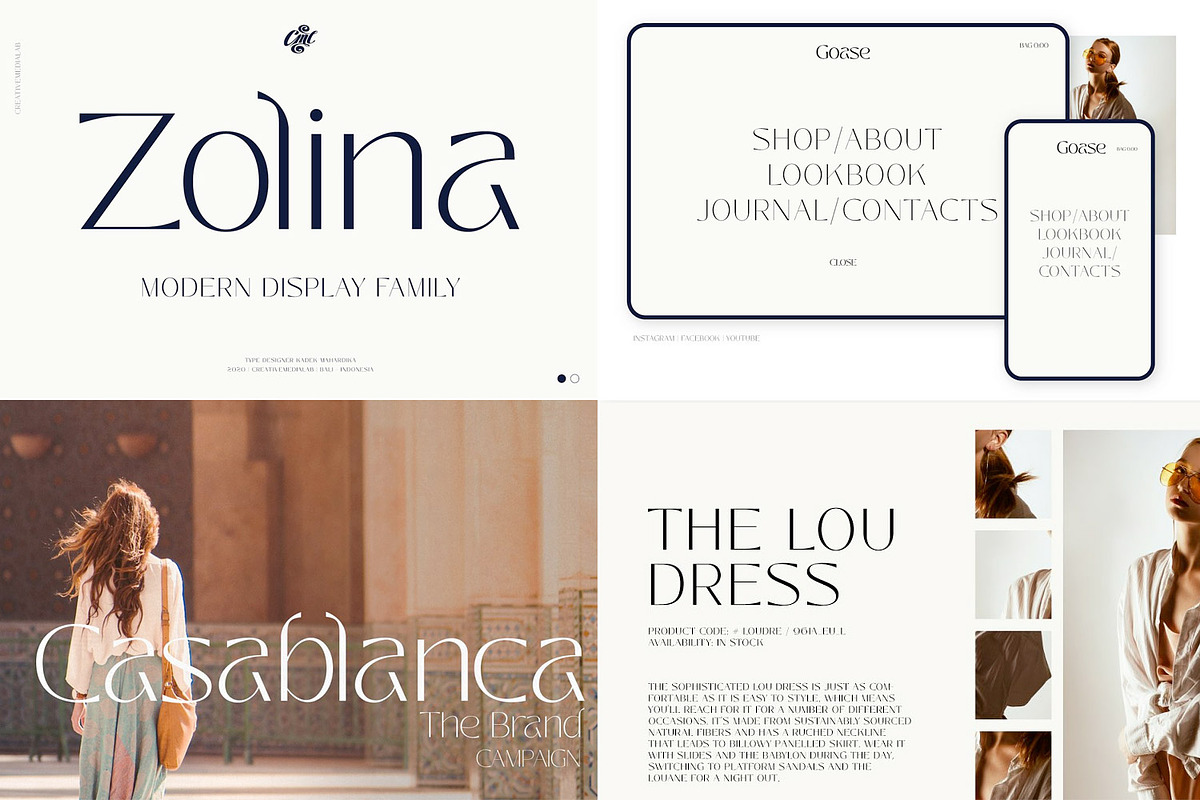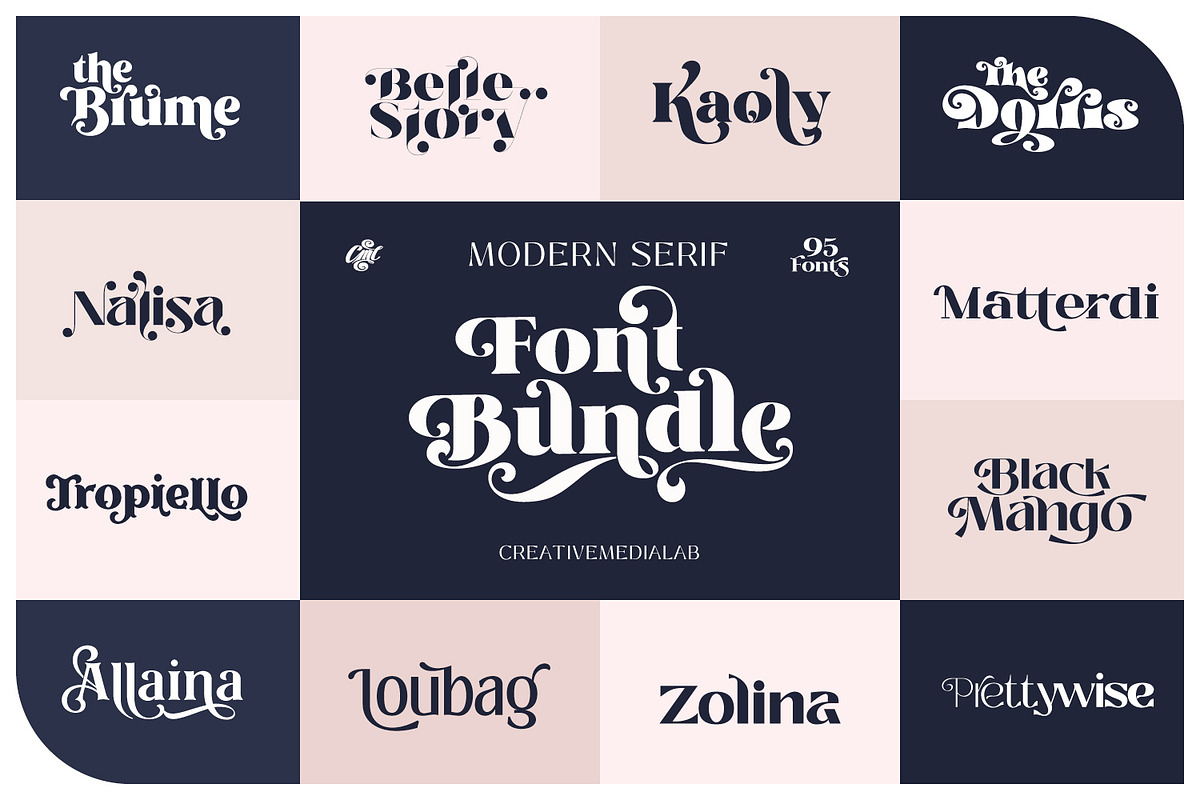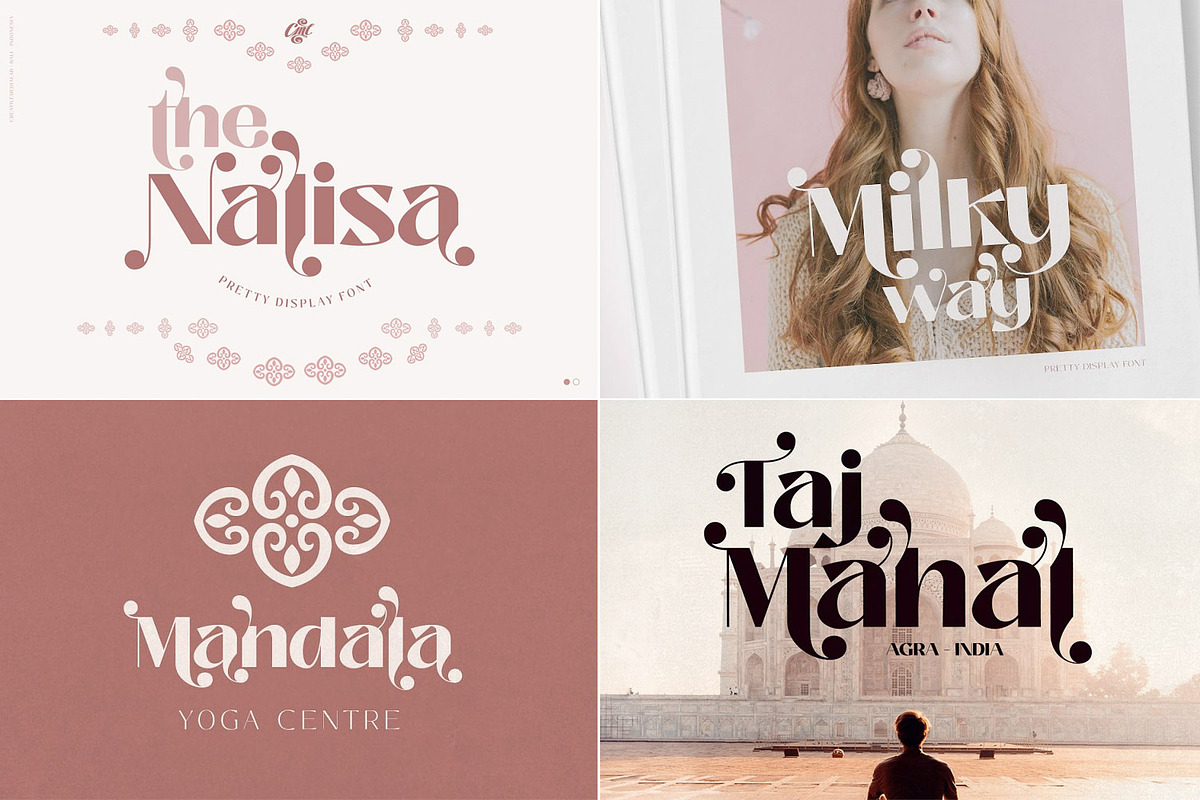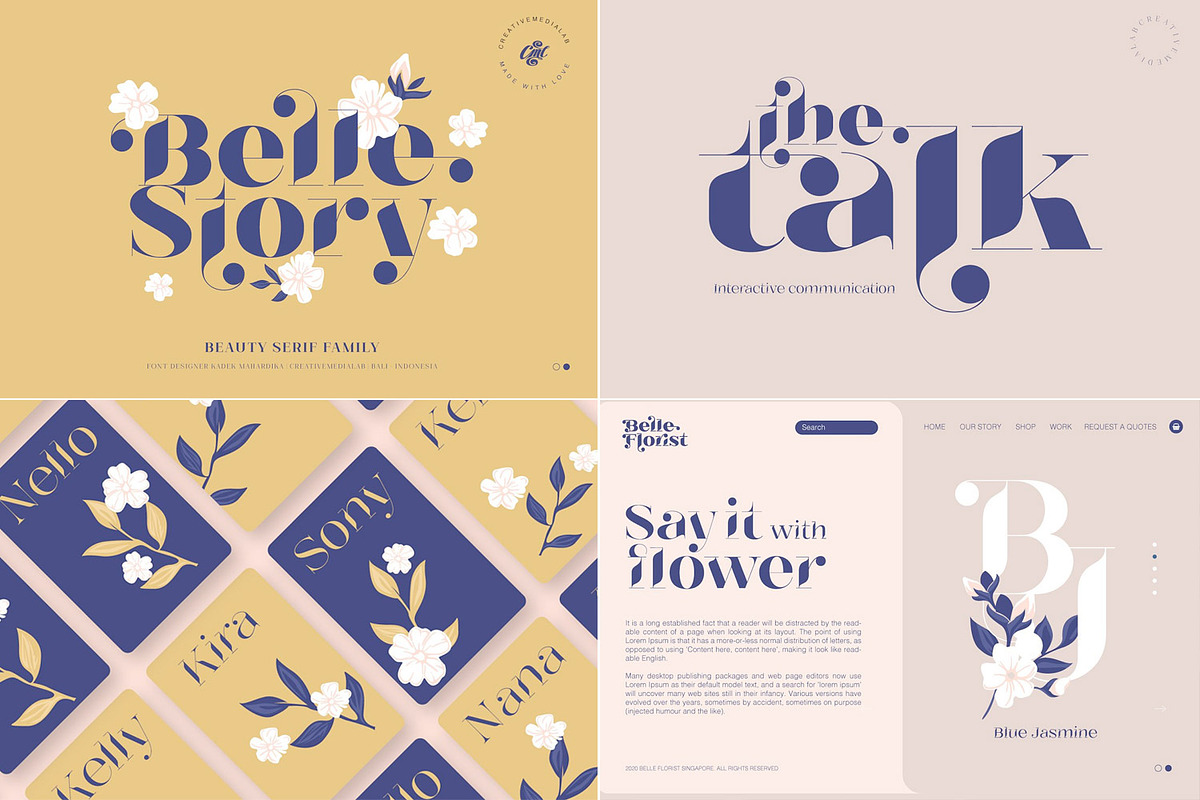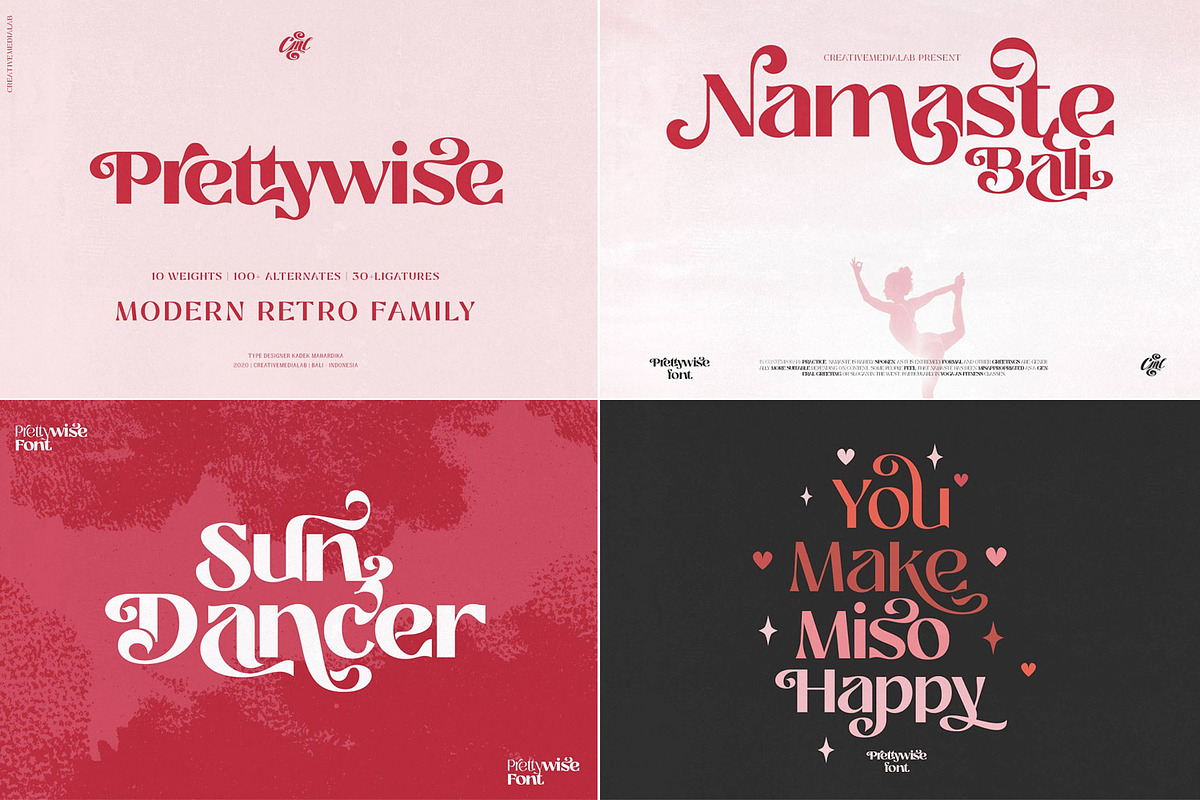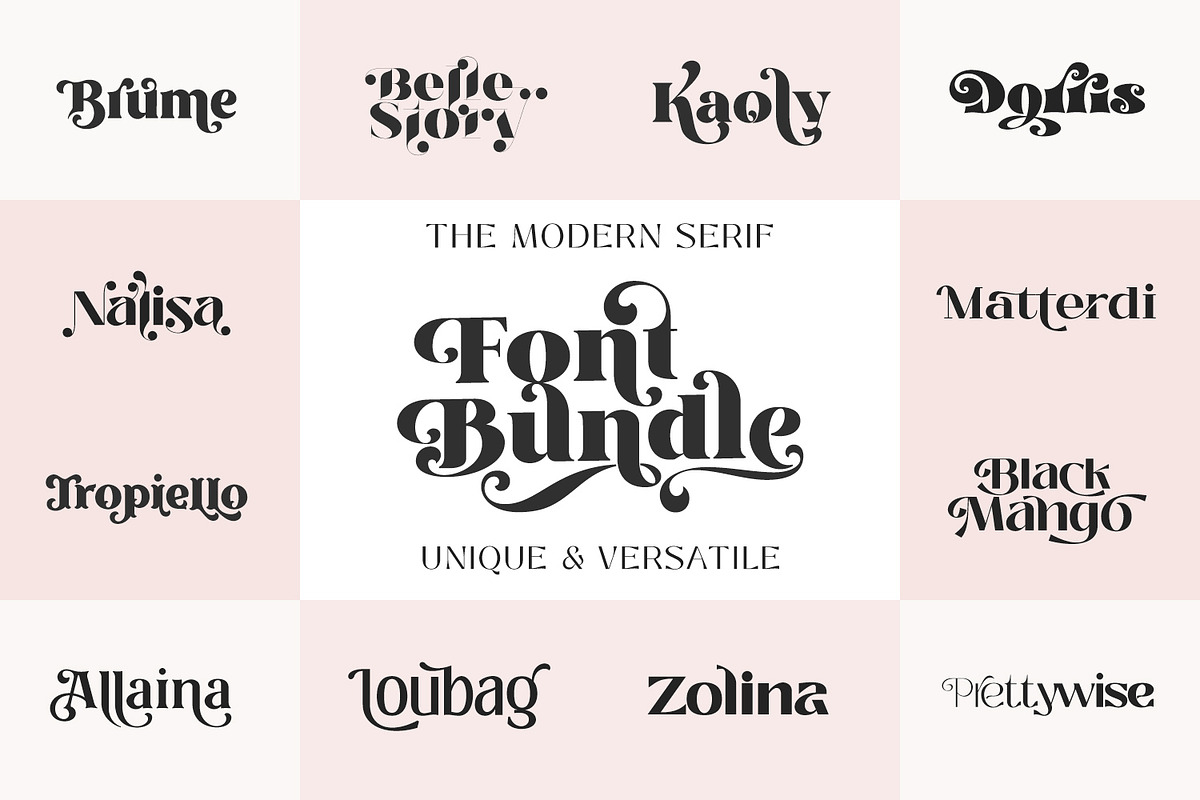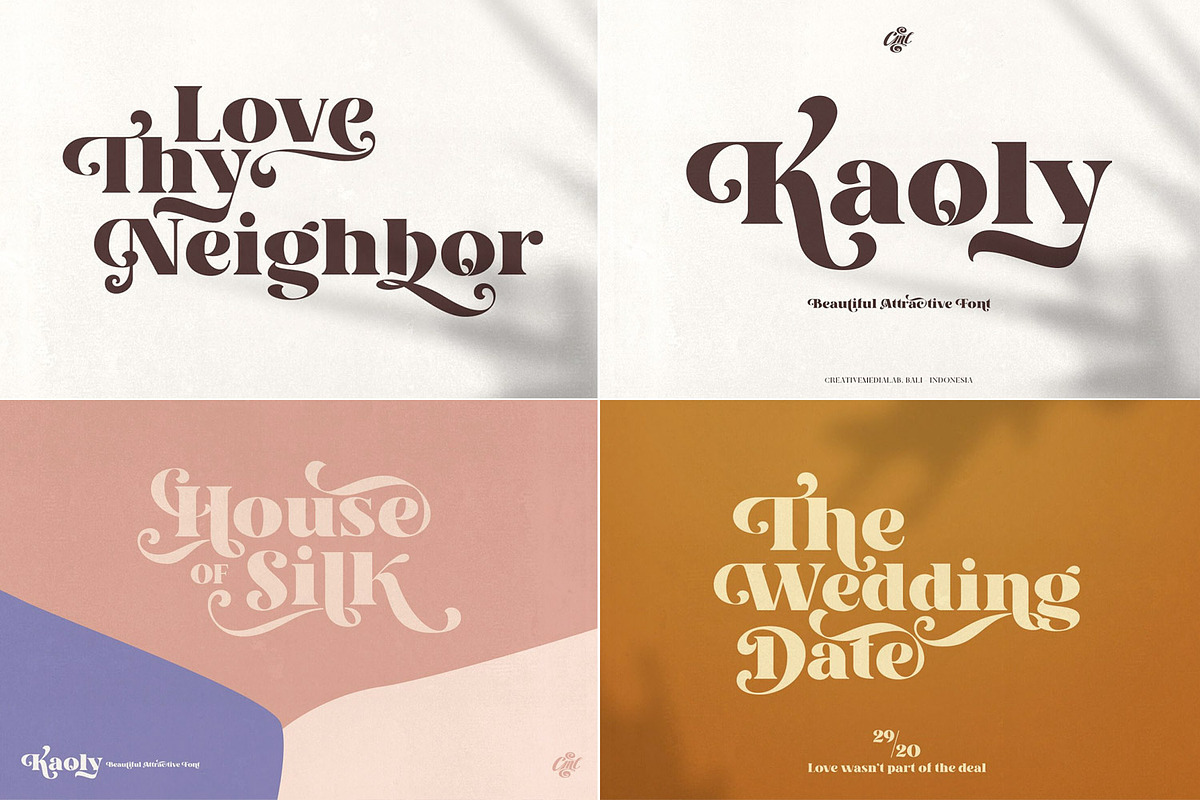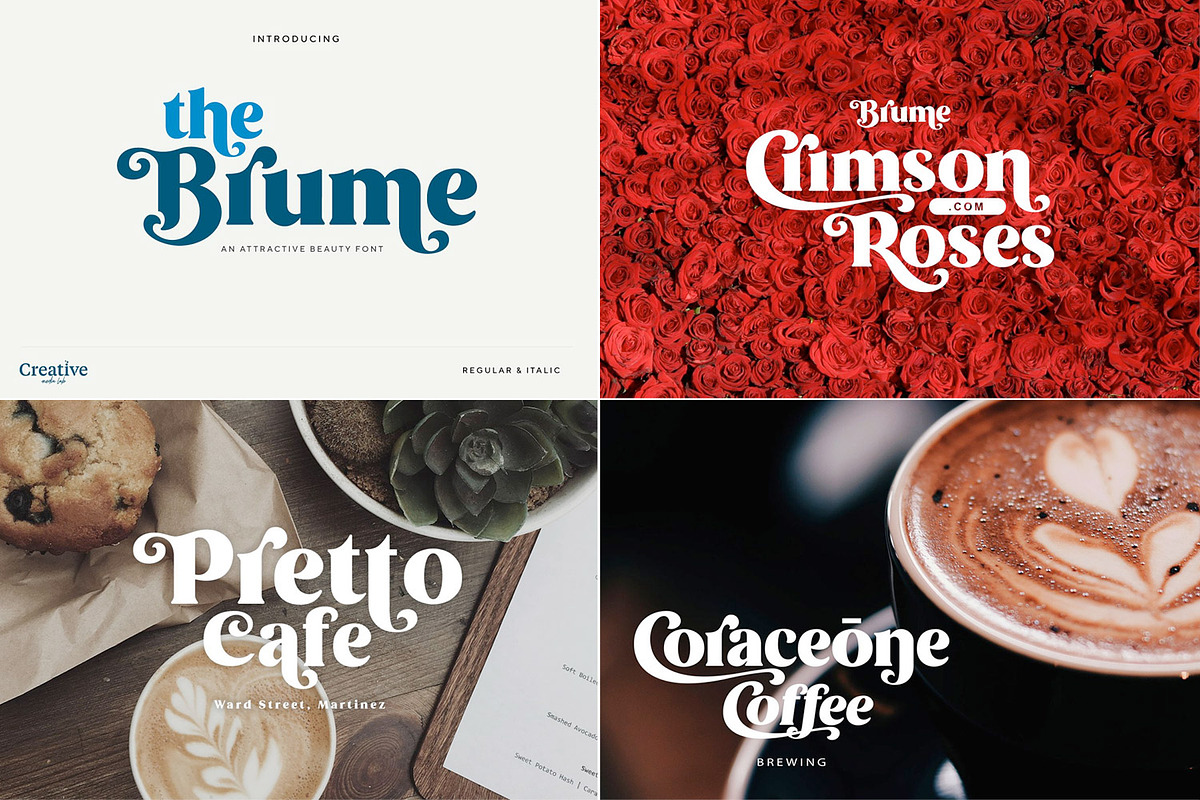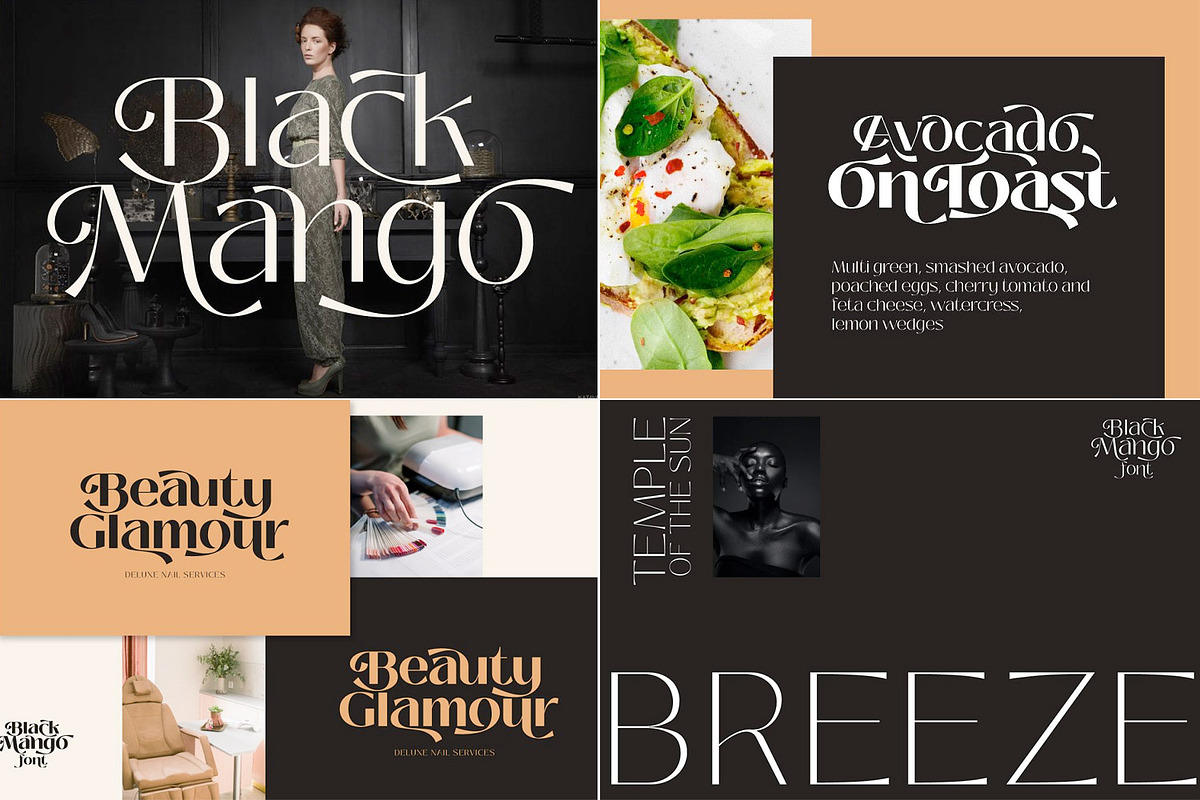
The Modern Serif Font Bundle
Our Best Seller fonts are now packed into Bundle. (The Moden Serif font bundle) all fonts has unique features with lot of alternates & ligatures to impressed your customers. Suitable for use in many design forms, for example Magazines, Branding, Postcards, Logos, DIY Projects, Invitation card, quotes, vintage look design, Web design, Christmas theme, old classic, 60s, 70s, 80s era, wedding projects and much more.
This is a good deal with total 12 families and 95 high quality fonts.